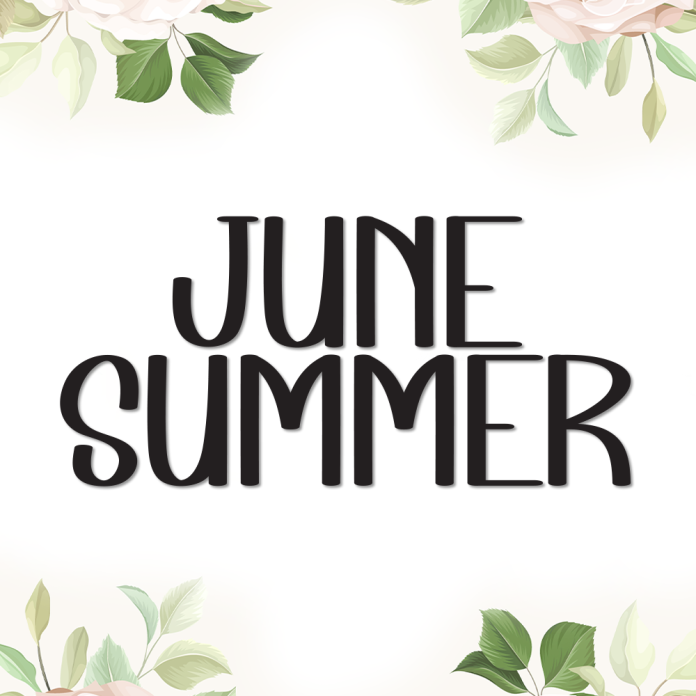
June Summer is a fresh and vibrant display font that captures the carefree joy of sunny days and warm breezes. With its bold yet playful letterforms, this font is perfect for summer-themed designs that radiate happiness and fun.
Ideal for travel posters, beach party invitations, holiday merch, social media graphics, and seasonal branding, June Summer adds a splash of sunshine to every project.
Bold and playful display style
Radiates summer vibes and cheerful energy
Perfect for beach themes, vacation promos, and lifestyle designs
Celebrate the sunshine with June Summer, the display font that brings your summer stories to life.